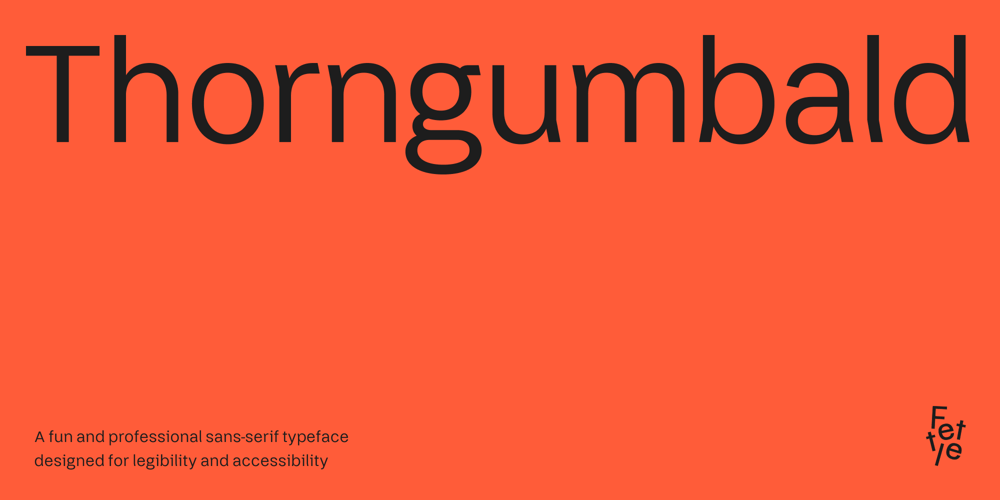
Thorngumbald
Thorngumbald font
Thorngumbald Font Family was designed by Thom Milson and published by Fettle Foundry. Thorngumbald contains 10 styles and family package options. Thorngumbald is a playful sans-serif typeface designed to merge fun and legibility, reducing similarities between certain letters to increase readability for people with vision impairments.Thorngumbald features 885 glyphs, supporting a large number of Latin languages, with thorough kerning for accented character combinations, polish alternatives for acute accents, oldstyle and tabular figures, expanded currency symbols, contextual, discretionary, and standard ligatures, mathematical symbols, contextual alternatives, and more.Language support includes Bosnian, Catalan, Czech, Danish, German, English, Spanish, Estonian, Finnish, French, Irish, Croatian, Hungarian, Icelandic, Italian, Lithuanian, Latvian, Maltese, Dutch, Norwegian, Polish, Portuguese, Romanian, Slovak, Slovenian, Albanian, Swedish, Turkish.The latest version includes an expanded character set, improved OpenType Features, new weights, improved italics, better kerning, and a host of small quality-of-life improvements.